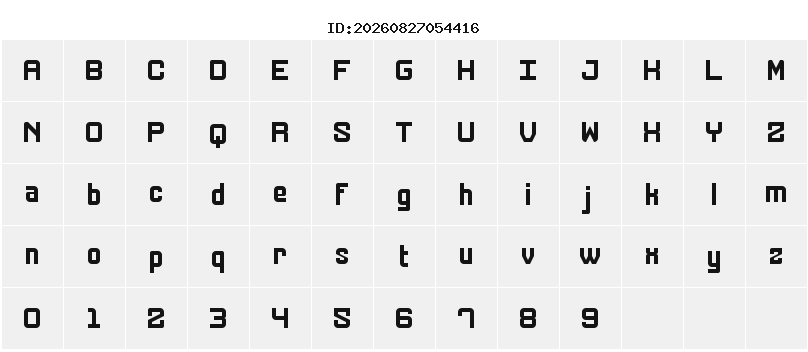
• Font Name: 5Muta Sans
• Designer: Noah - 10 year old typomaniac
• Description: ‚Äú5Muta Sans‚Äù was built with FontStruct
5Muta Sans.ttf is a modern, elegant sans-serif font designed for ultimate readability and visual harmony. Perfect for branding, headlines, web design, and print materials.